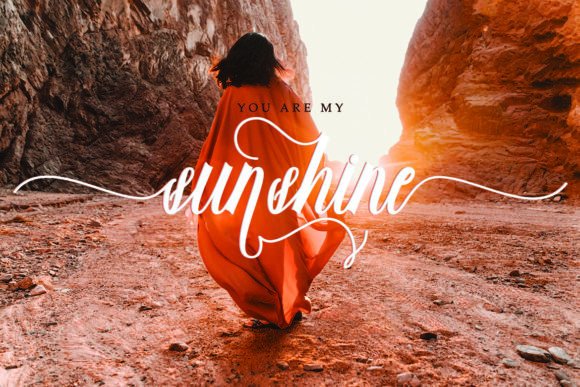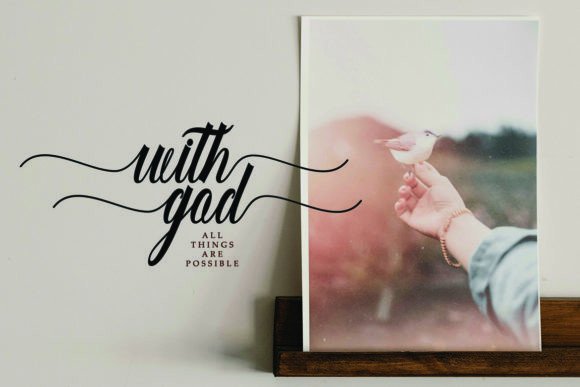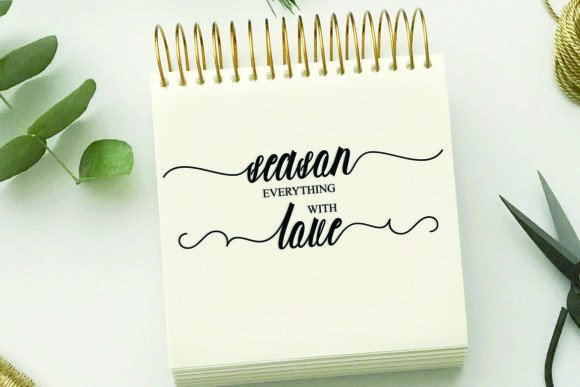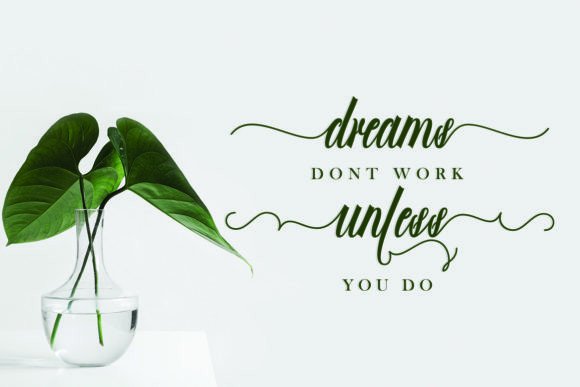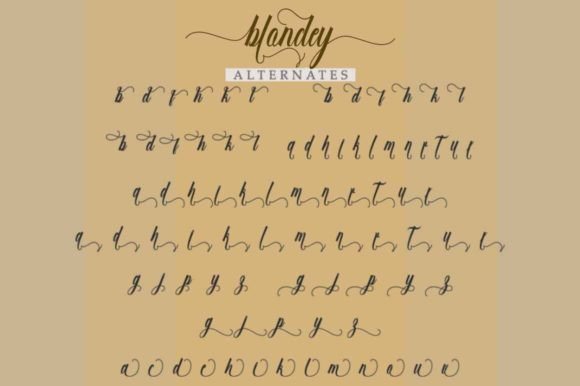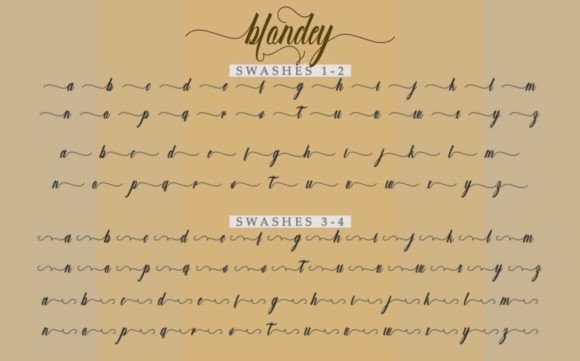
Introducing Blondey Script Font: The Ultimate Handwritten Calligraphy Model
Are you tired of using the same old fonts for your designs? Look no further! We are excited to introduce Blondey Script Font, the newest and most unique handwritten simple font that will elevate your designs to the next level. This stunning font is a model of original handwritten calligraphy, updated with special glyphs that combine fantasy and handwritten ink.
What Makes Blondey Script Font Special?
Blondey Script Font is not just another font; it’s a work of art that will add a touch of elegance and sophistication to any design. With its updated hand calligraphy model, this font boasts a distinctive and stylish look that will make your designs stand out from the crowd. The special glyphs used in Blondey Script Font are carefully crafted to provide a unique combination of fantasy and handwritten ink, making it perfect for a wide range of design applications.
Blondey Script Font is an incredibly versatile font that can be used for various design projects, including:
- Wedding designs: Add a touch of romance and elegance to your wedding designs, including invitations, programs, and decorations.
- Branding materials: Create a unique and memorable brand identity with Blondey Script Font, perfect for logos, business cards, and letterheads.
- Blog titles and quotes: Add a stylish and sophisticated touch to your blog titles and quotes, making them stand out from the rest.
- Invitations: Create beautiful and eye-catching invitations for any occasion, including parties, events, and celebrations.
- Business cards: Make a lasting impression with Blondey Script Font on your business cards, perfect for networking and professional settings.
Key Features of Blondey Script Font
Here are some of the key features that make Blondey Script Font a must-have for designers and crafters:
- Original handwritten simple font: Blondey Script Font is a genuine handwritten font that exudes a sense of simplicity and elegance.
- Updated hand calligraphy model: The font features an updated hand calligraphy model that provides a unique and stylish look.
- Special glyphs: The font includes special glyphs that combine fantasy and handwritten ink, adding an extra touch of sophistication.
- Beautiful on all designs: Blondey Script Font will look stunning on any design, from wedding designs to branding materials and more.
Why Choose Blondey Script Font?
With so many fonts available, why choose Blondey Script Font? Here are just a few reasons:
- Unique and distinctive: Blondey Script Font is a one-of-a-kind font that will set your designs apart from the rest.
- Elegant and sophisticated: The font exudes a sense of elegance and sophistication, perfect for high-end designs.
- Versatile: Blondey Script Font can be used for a wide range of design applications, from wedding designs to branding materials.
| Font Name | Blondey Script Font |
| Author | gianstudio12 |
In conclusion, Blondey Script Font is a stunning handwritten calligraphy model that will elevate your designs to the next level. With its unique and distinctive look, special glyphs, and versatility, this font is perfect for designers and crafters looking to add a touch of elegance and sophistication to their designs. Get your hands on Blondey Script Font today and take your designs to new heights!